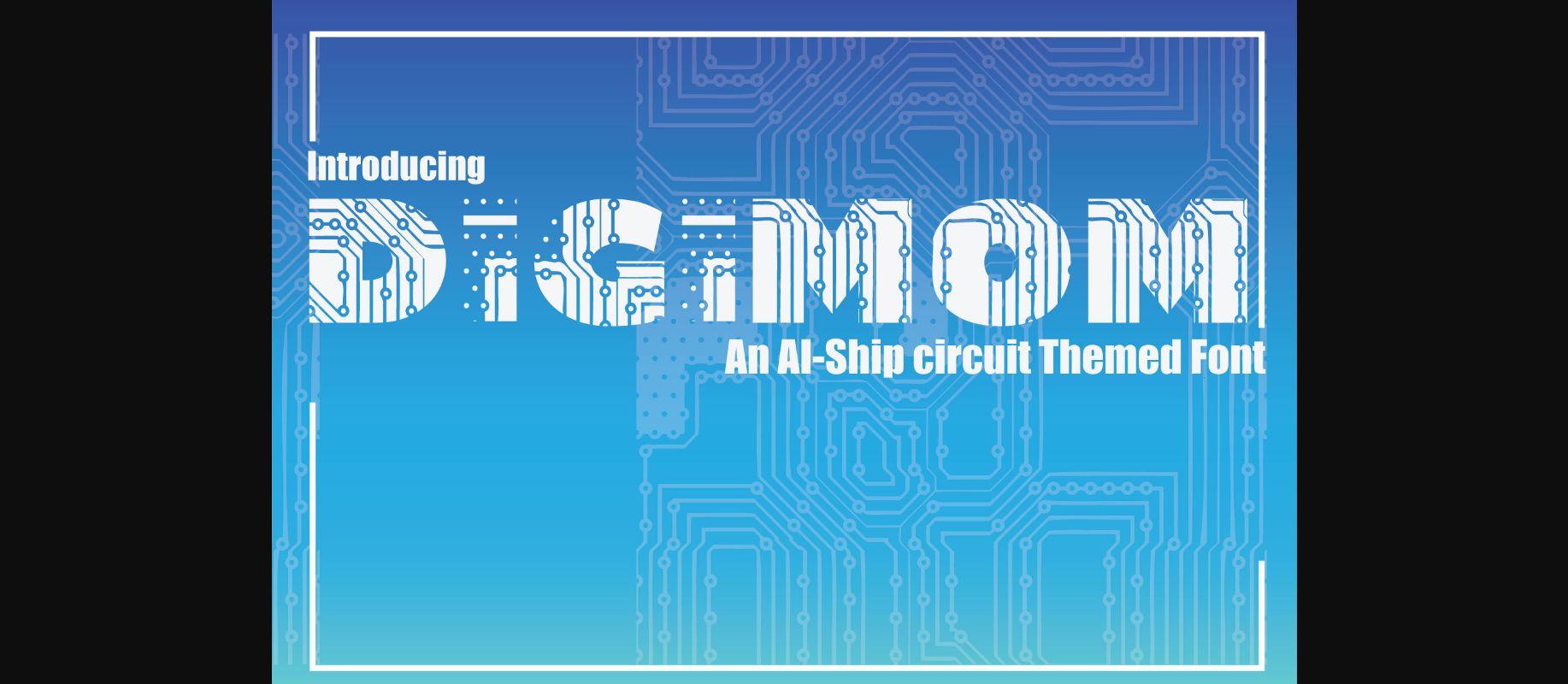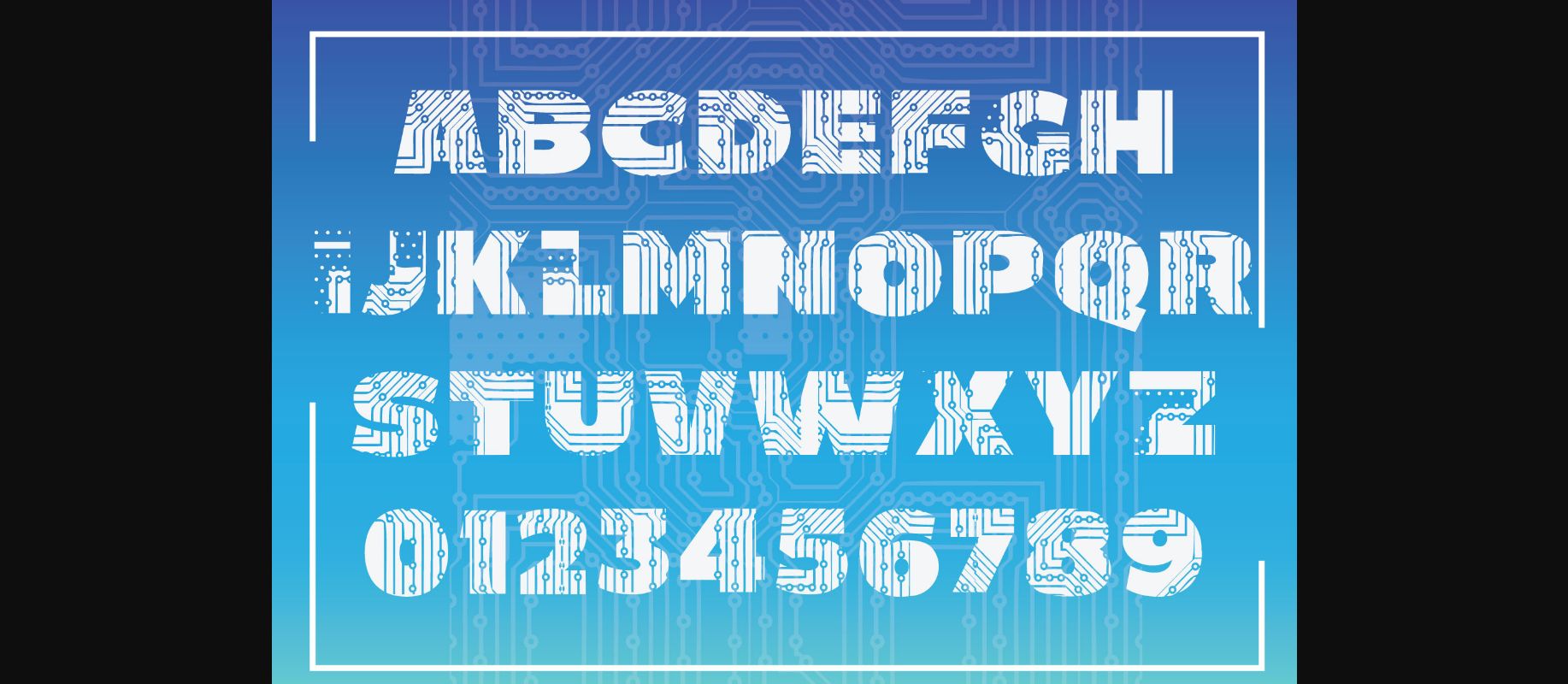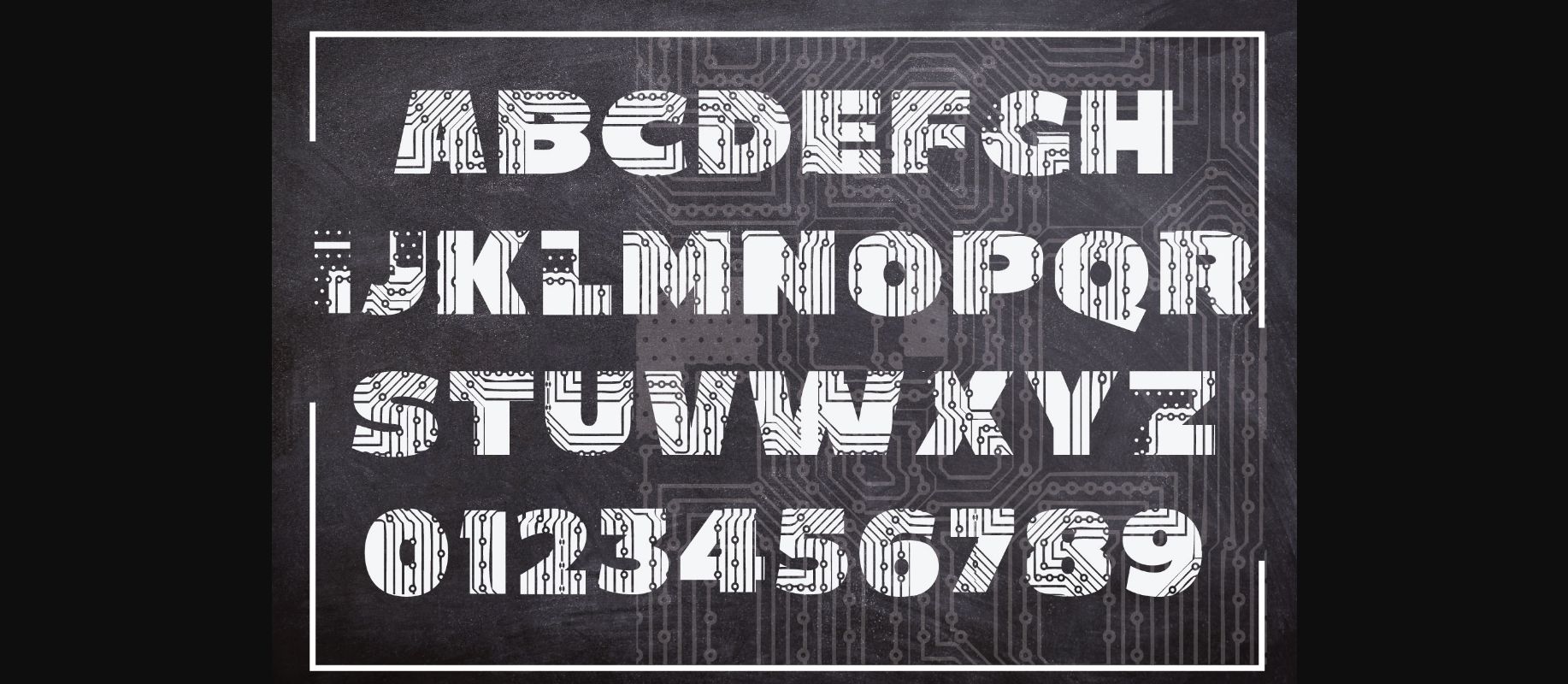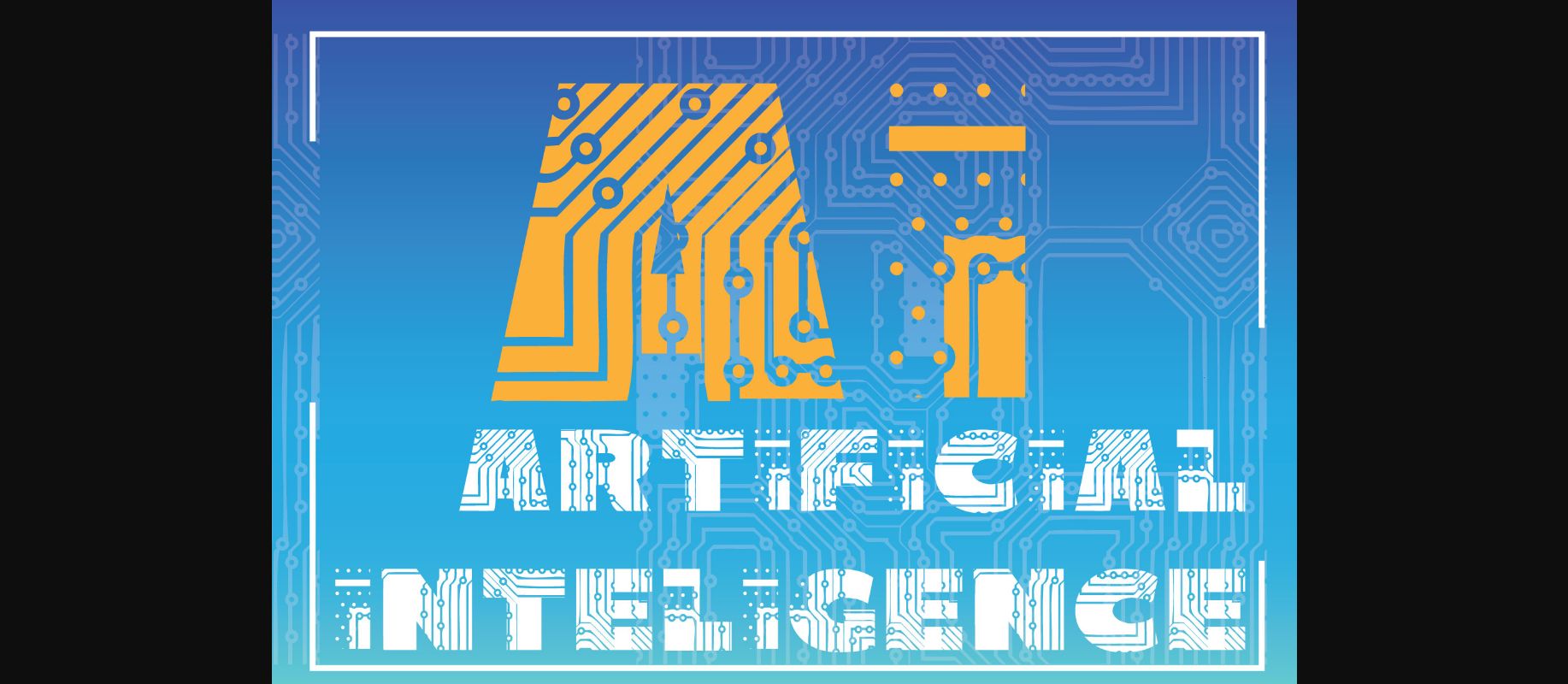
Digimom Font
About Digimom Font
Digimom is an incredibly genuine and cool decorative font. This original look will appeal to a wide range of crafty ideas, from letterheads and titles, to stationery.